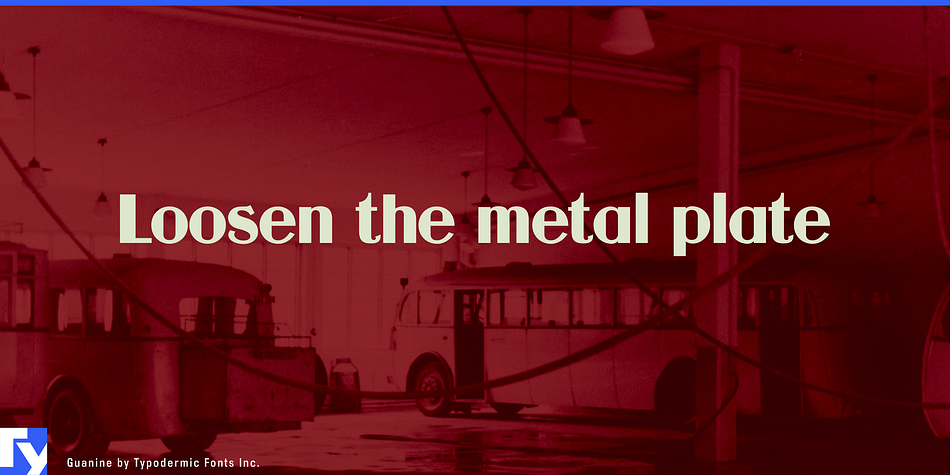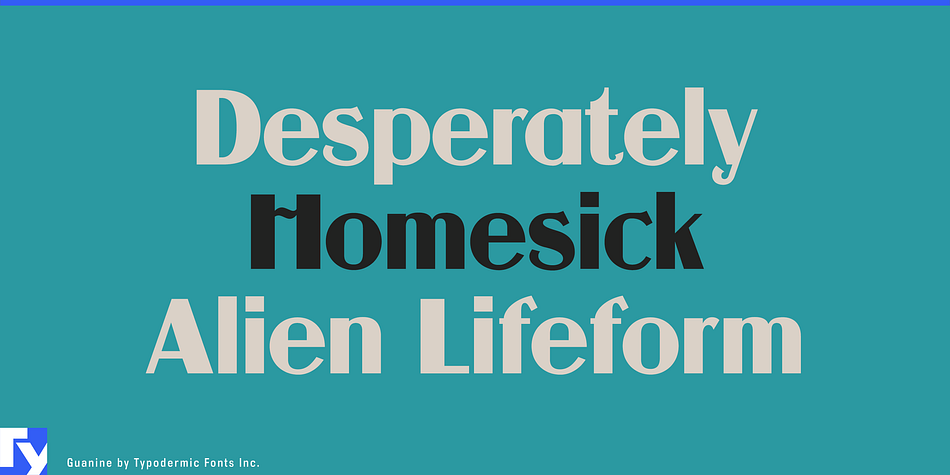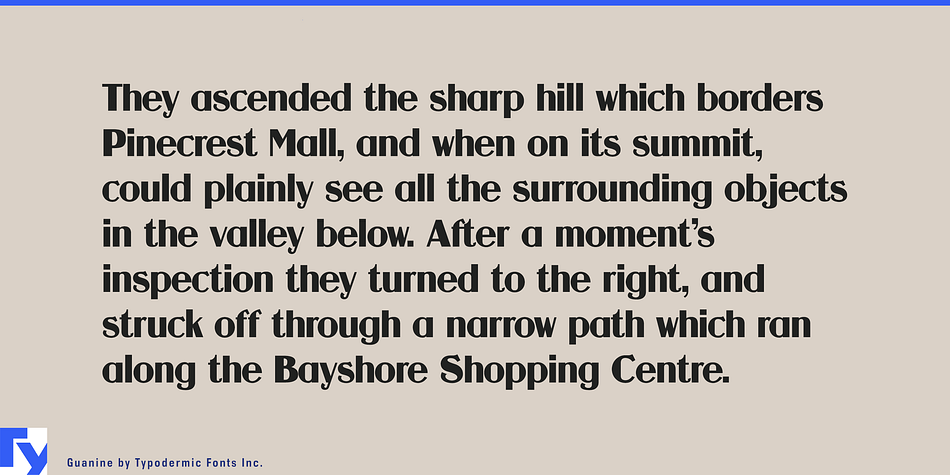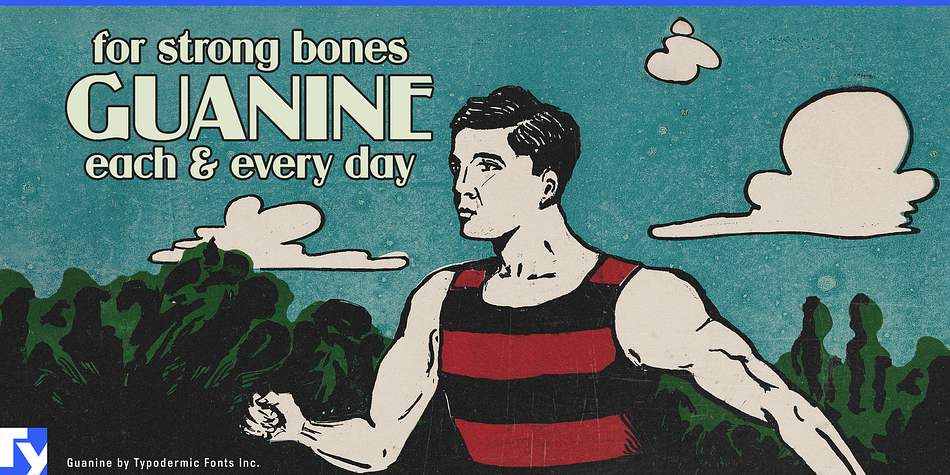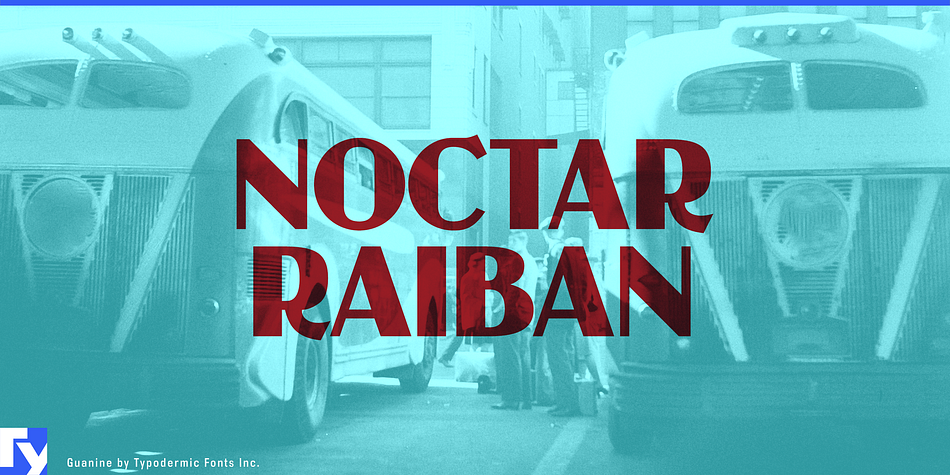
Guanine is a display sans and art deco font published by Typodermic Fonts Inc.
Guanine is an old timey display font inspired by lettering seen on an old bus.